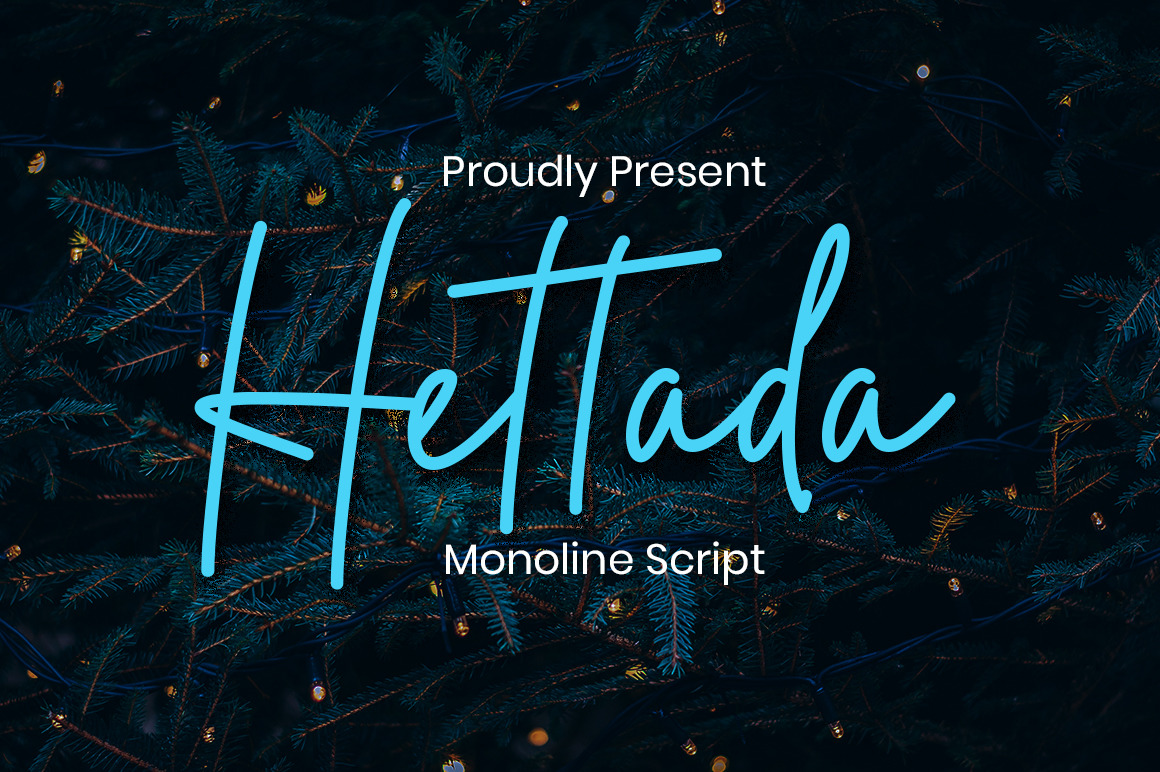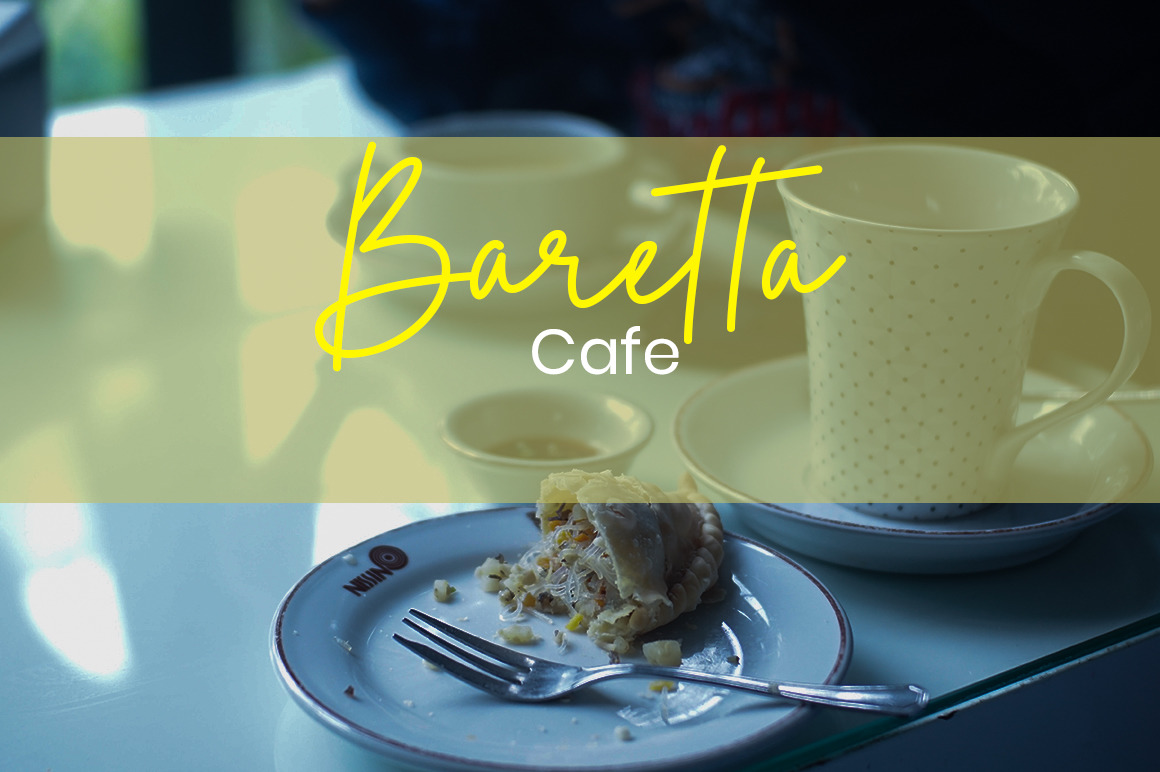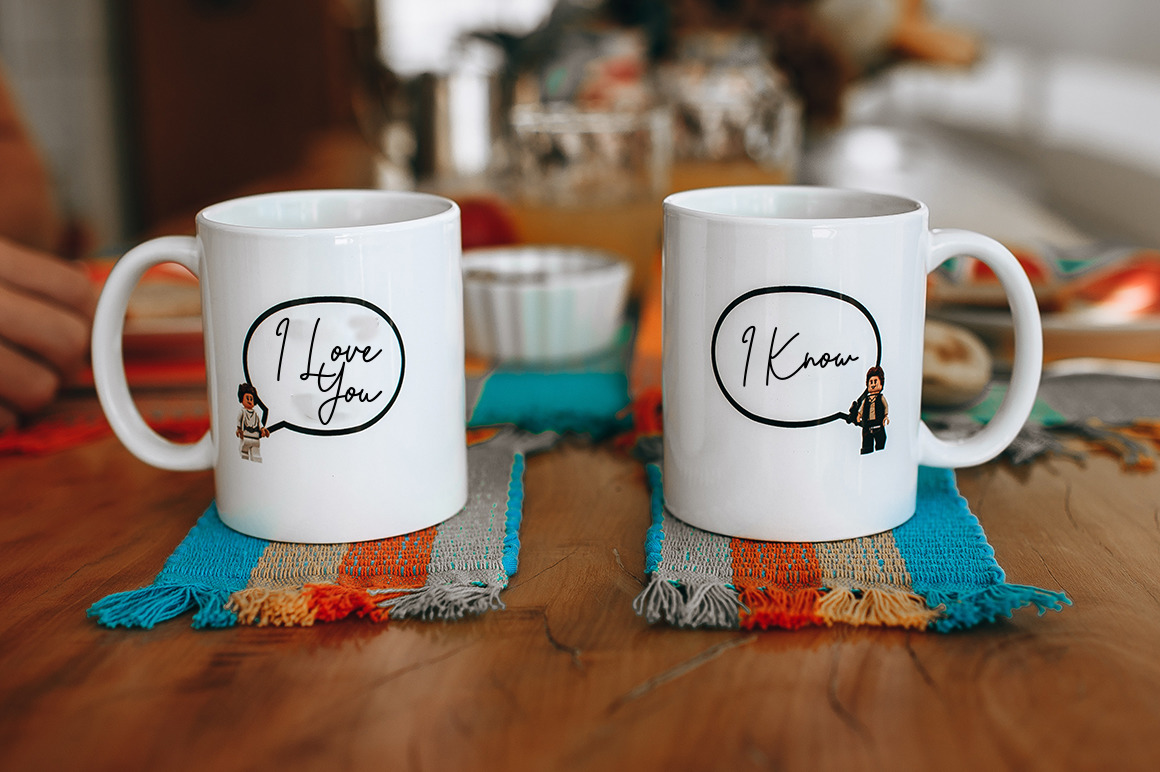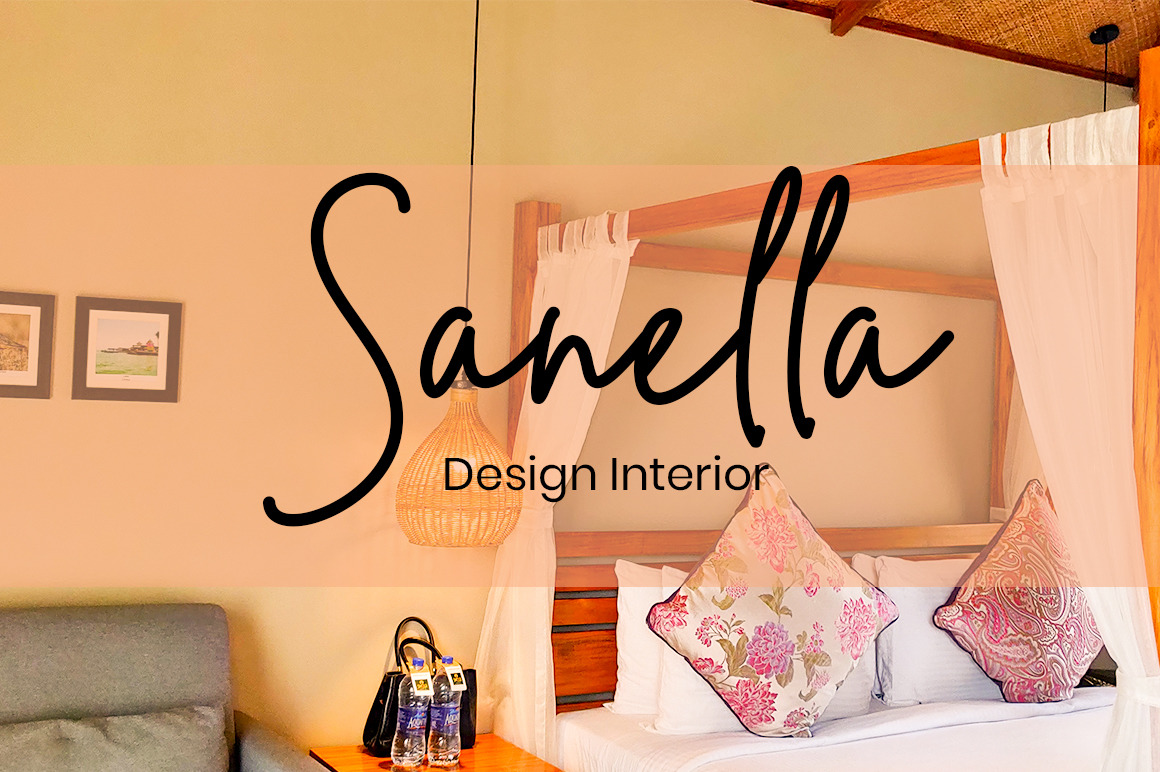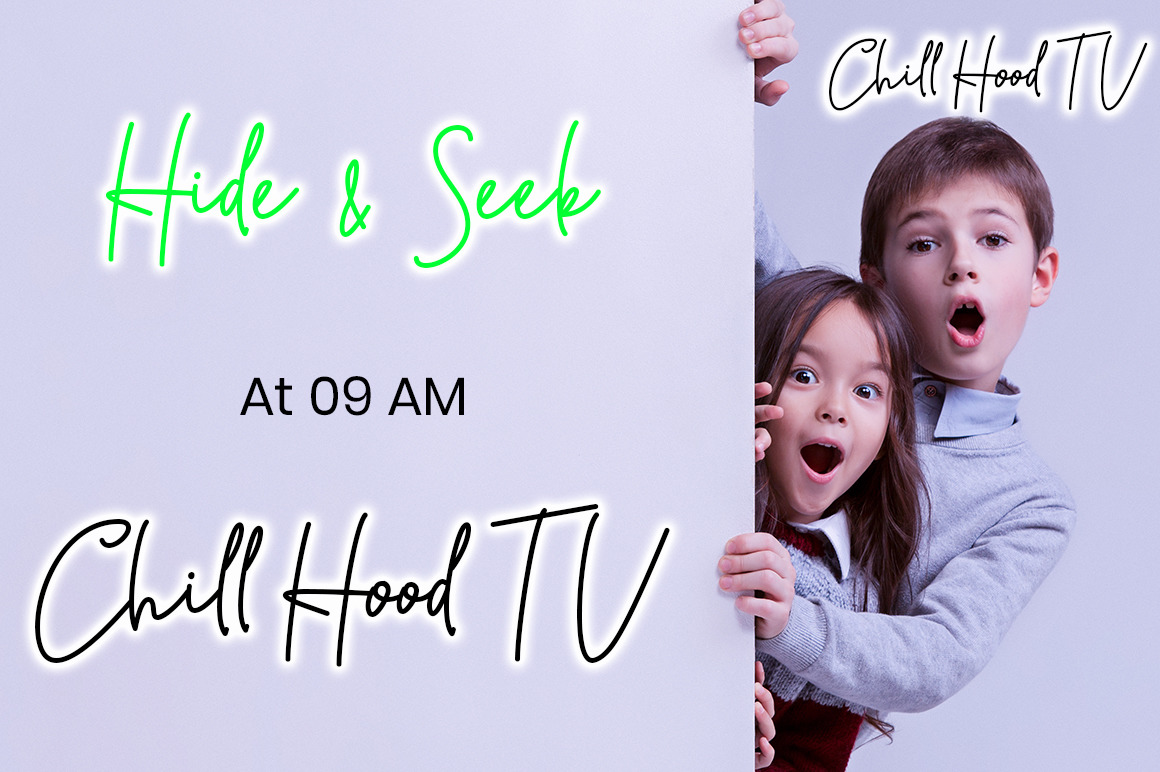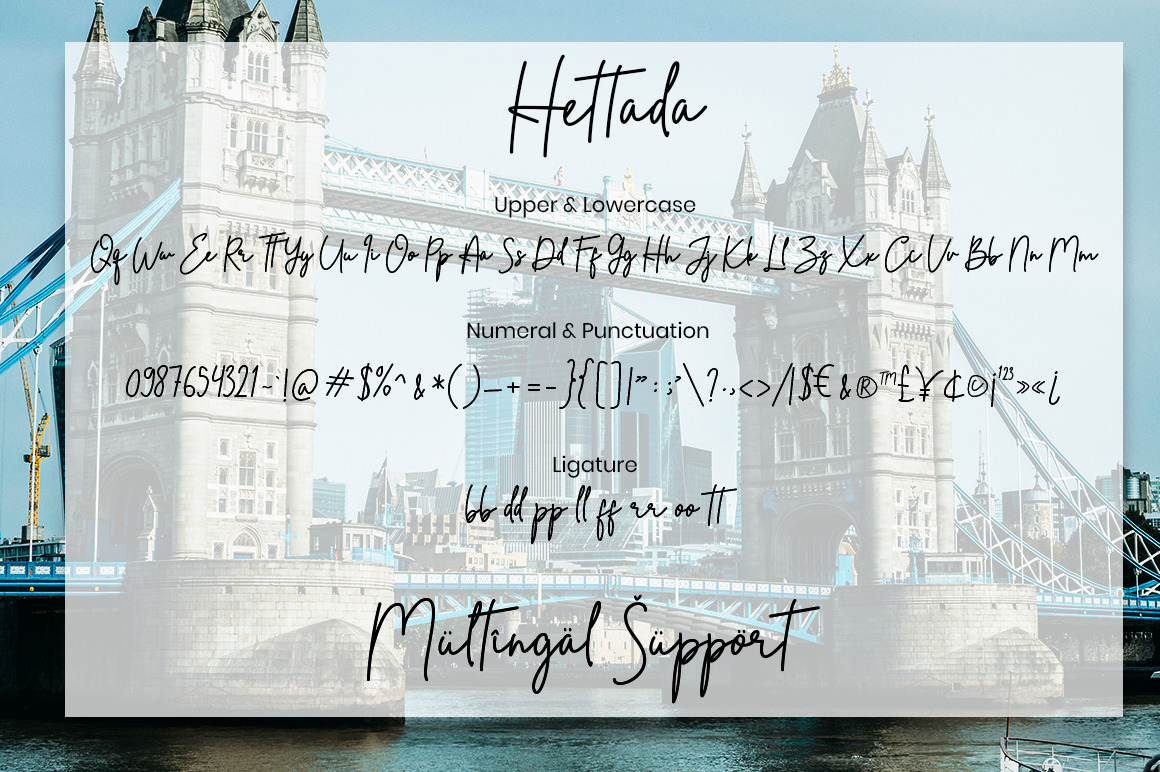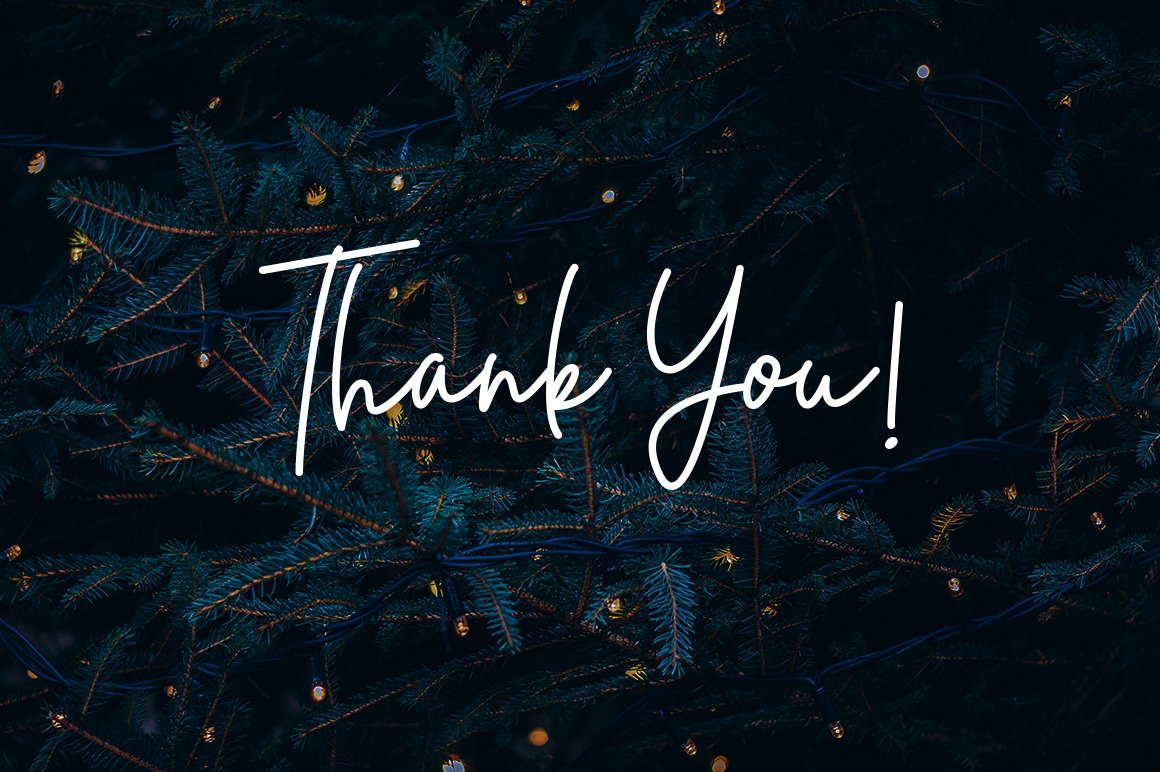
Hettada Font
Hettada is monoline script font which natural movement and elegant for handwritten style.
Standard Glyphs
Ligature
Fonts include multilingual support for; ä ö ü Ä Ö Ü ß ¿ ¡